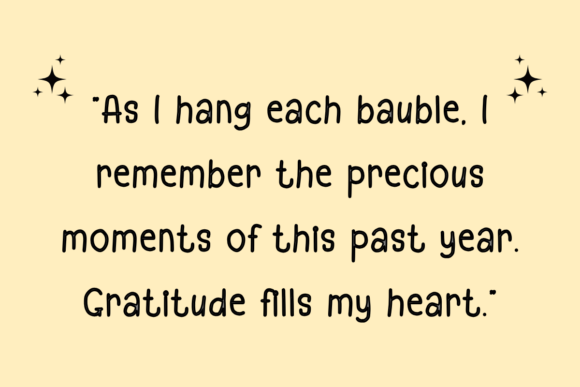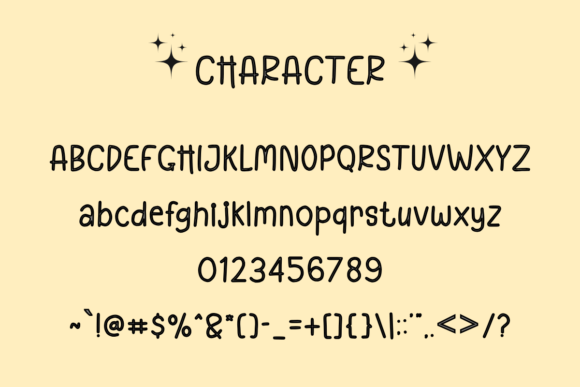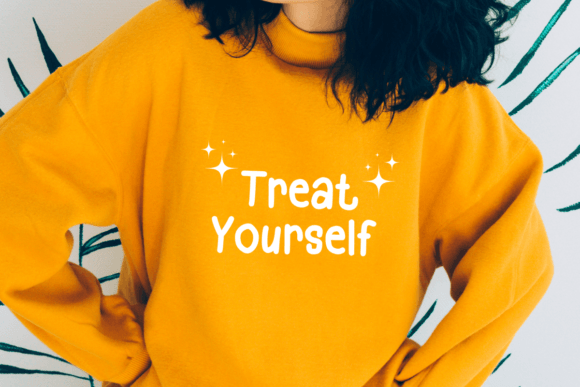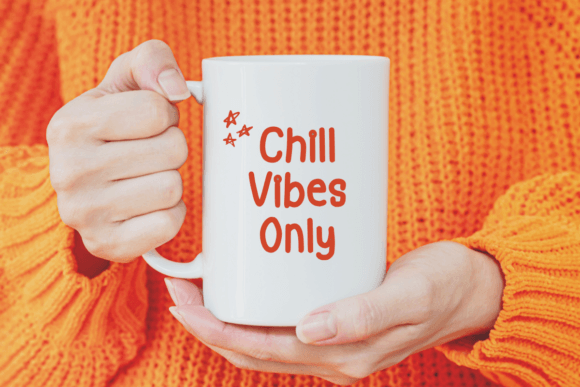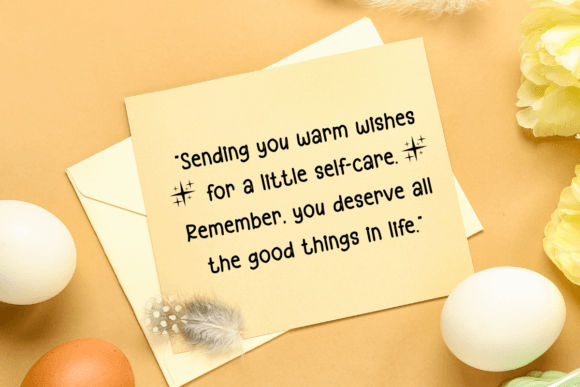
Introducing Bauble Eve Font: The Perfect Addition to Your Typography Collection
Are you a designer, crafter, or DIY enthusiast looking for a unique and playful font to elevate your projects? Look no further than Bauble Eve, a charming hand-penned typeface that is sure to delight. With its animated and whimsical appeal, Bauble Eve is the perfect addition to your typographic arsenal, and we’re excited to share its many uses and benefits with you.
A Font that’s Perfect for a Variety of Projects
Bauble Eve is a versatile font that can be used in a wide range of applications, from notes and planners to interior KDPs and memorable greetings. Its playful and charming design makes it an excellent choice for anyone looking to add a touch of whimsy to their work. Whether you’re creating teaching paraphernalia, invitation designs, or scrapbooking must-haves, Bauble Eve is the perfect font to help you inject a wholesome touch into your projects.
Elevate Your Written Word with Bauble Eve
One of the best things about Bauble Eve is its ability to transform any written word into a delightful sight. Its hand-penned design gives it a personal and unique touch that is sure to make your projects stand out. Whether you’re creating diaries, printables, low content essentials, daily or monthly planners, notepads, or calendars, Bauble Eve is the perfect font to help you add a touch of charm and personality to your work.
Use Bauble Eve in a Variety of Digital and Print Applications
Bauble Eve is a digital font that can be used in a wide range of applications, from digital downloads to print-on-demand products. It’s perfect for designers and crafters who want to create unique and personalized products, such as KDP templates, weekly planners, and notebook paper. With Bauble Eve, you can create a wide range of products that are sure to delight your customers and audience.
Why Choose Bauble Eve?
So why choose Bauble Eve over other fonts? Here are just a few reasons why this font stands out:
- Playful and charming design: Bauble Eve has a unique and whimsical design that’s sure to add a touch of personality to your projects.
- Versatile: Bauble Eve can be used in a wide range of applications, from digital downloads to print-on-demand products.
Tips for Using Bauble Eve in Your Projects
Here are a few tips for using Bauble Eve in your projects:
- Use it for headings and titles: Bauble Eve is perfect for headings and titles, where its playful and charming design can really shine.
- Mix it with other fonts: Bauble Eve can be paired with other fonts to create a unique and interesting look.
- Experiment with different colors: Bauble Eve looks great in a variety of colors, so don’t be afraid to experiment and find the perfect color for your project.
In conclusion, Bauble Eve is a charming and versatile font that’s perfect for designers, crafters, and DIY enthusiasts. With its playful and whimsical design, Bauble Eve is sure to add a touch of personality to your projects and help you create unique and memorable products. Whether you’re creating digital downloads or print-on-demand products, Bauble Eve is a great choice for anyone looking to elevate their typography and add a touch of charm to their work.